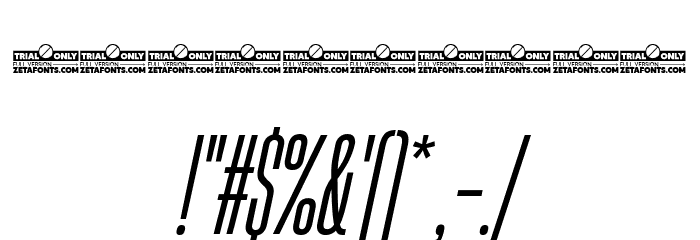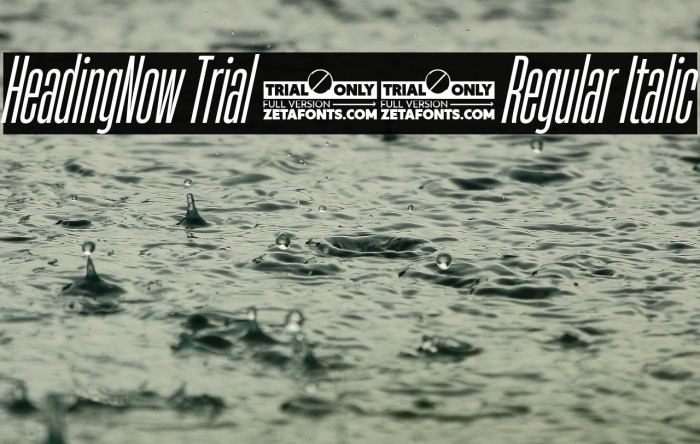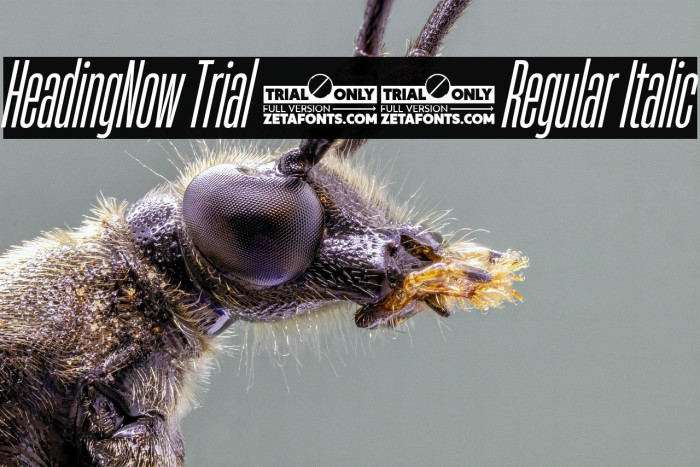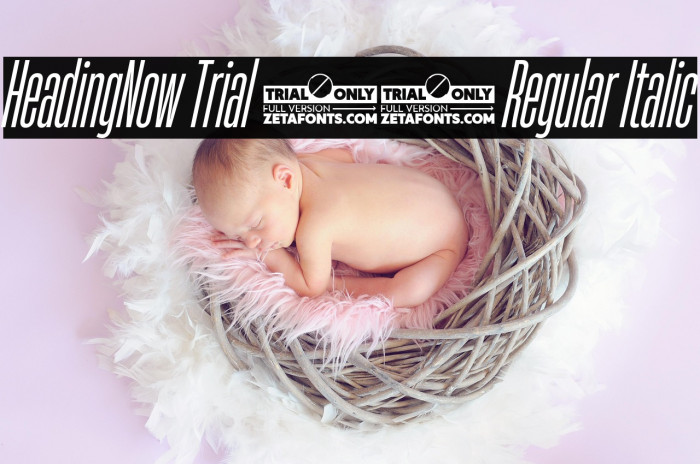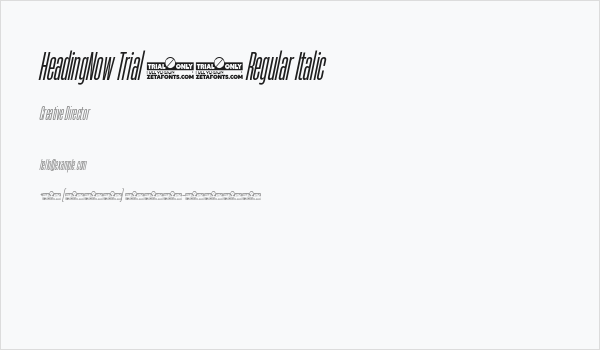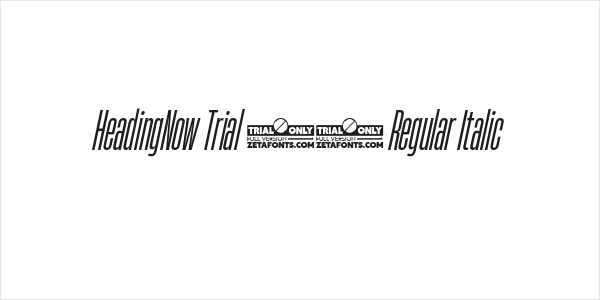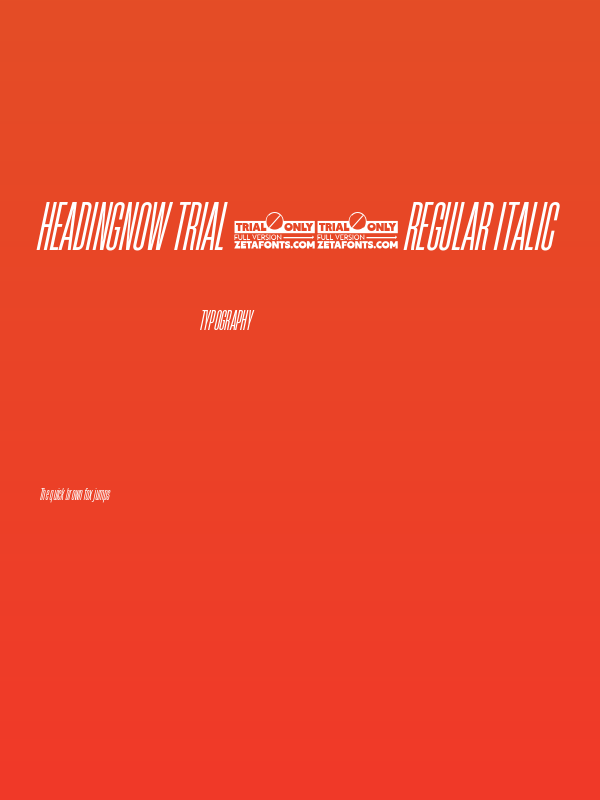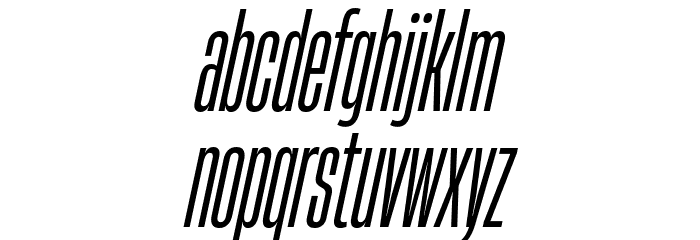
HeadingNow Trial 14 Regular Italic Font
HeadingNow Trial 14 Regular Italic Description
This font exhibits a modern and sleek design with a strong emphasis on verticality and a slight slant, giving it an italicized appearance. The characters are elongated and narrow, contributing to a condensed look that maintains readability. The strokes are consistent in weight, providing a uniform appearance across all characters. The uppercase and lowercase letters are well-proportioned, with a distinct separation between each character, ensuring clarity. The numerals and special characters follow the same design principles, integrating seamlessly with the alphabet. This font's style is both professional and contemporary, making it suitable for a variety of applications.
| Use Case | Headlines, Logos, Digital Media |
| Proposed Projects | Ideal for branding, advertising, editorial design, and digital media where a modern and professional look is desired. |